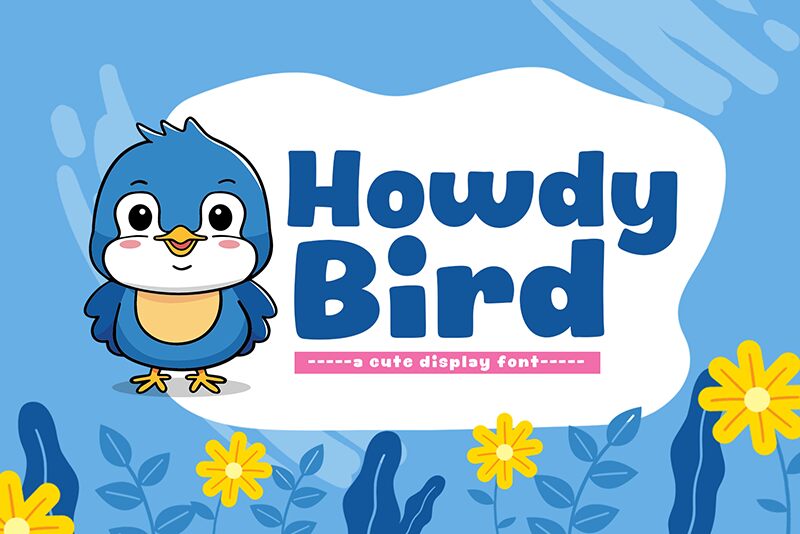
Howdy Bird
Howdy Bird font by Khurasan is a free cartoon display font formed with bold, rounded, and bubbly characters. The retro design is presented in uppercase letters each of which was carefully thought of to match the effortless reading requirements. Whimsical and fun, the magical typesetting set spreads friendly approaches wherever seen.
Approachability makes this typeface seamlessly suitable for books, children’s books, websites for kids’ activities and stories, game interfaces, clothing among other product labels for kids or adults as well. Use it further in crafting logos and branding visuals; playful quotes on social media or advertising channel posts; creative posters; flyers; magazines and newspaper headlines; presentation slideshows; product packaging designs plus many other areas.